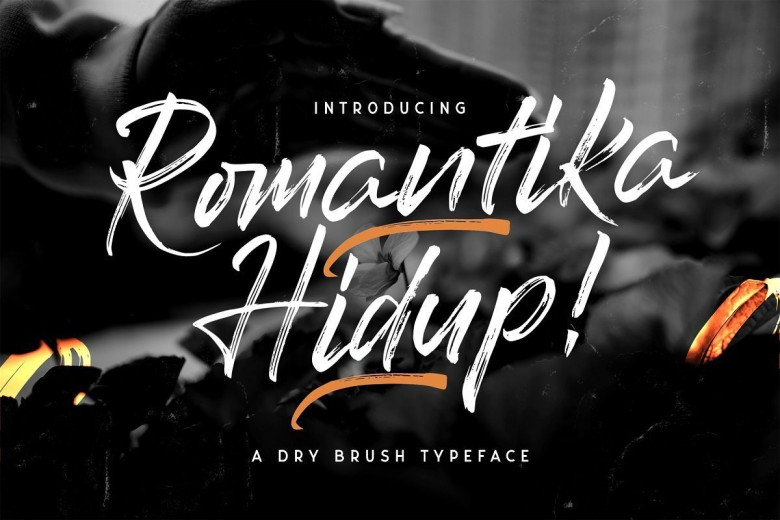
Romantika Hidup Dry Brush Typeface
Romantika Hidup Typeface is a dry brush script typeface that mimics natural dry brush styles. It contain lowercase, uppercase, symbol, and also support multi language and more ligatures in this font. Romantika Hidup also comes with Swash and doodle font that you can use to make a logo for branding, beautiful fashion design, suitable for wedding invitation, or handwritten quote.